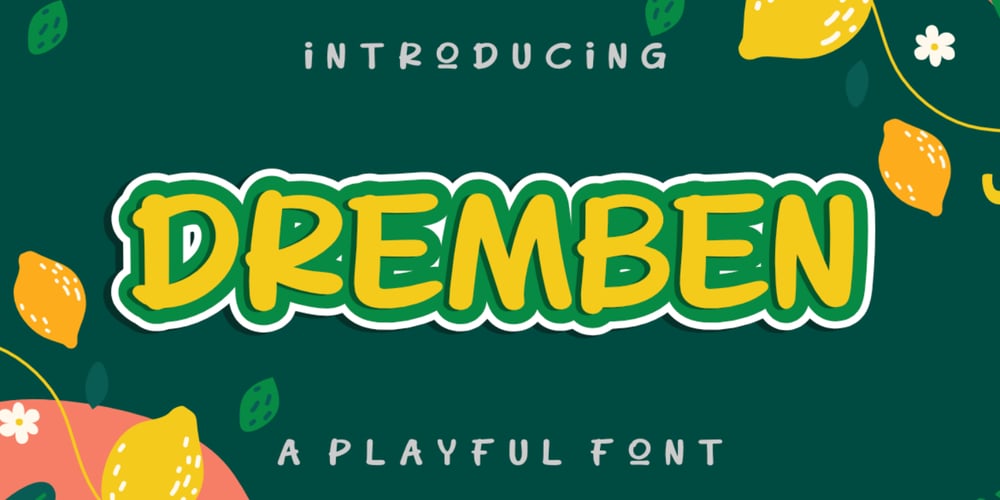
Dremben Font Family was designed by Bayu Aji Fais Mursid and published by Bayuktx. Dremben contains 1 styles and family package options. Hello,Thank you for visiting my products, we will give you the best choice.Dremben a Playful Font, This font is made with a high premium quality level which you can use as flyers, quotes, posters, banners, packaging, merchandise, logotypes and much more.FEATURES :* Uppercase* Lowercase* Number* Punctuation* Multilingual* PUA Encode* OpentypeFILES INCLUDED :* Dremben. O* Dremben. T* Dremben. Woff1* Dremben. Woff2Thank you